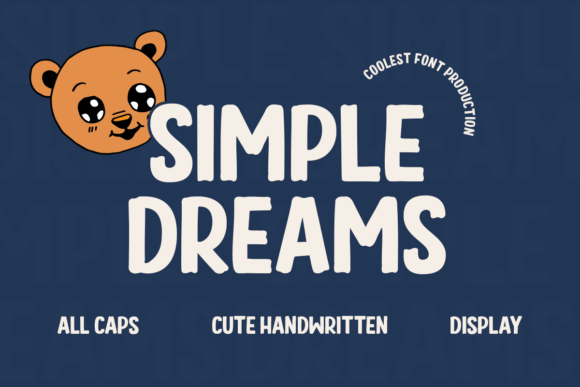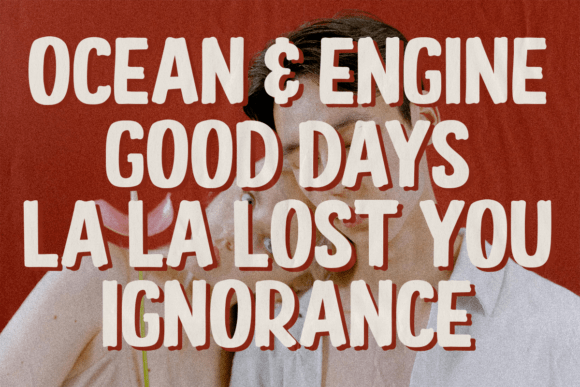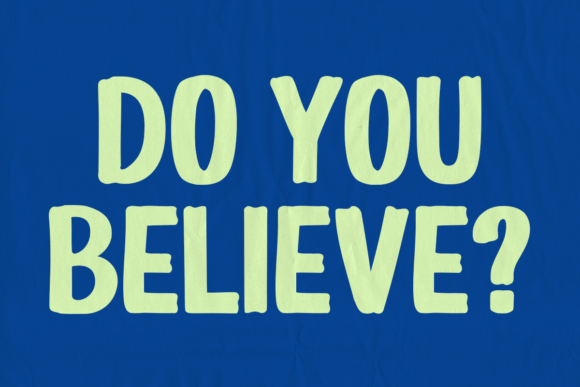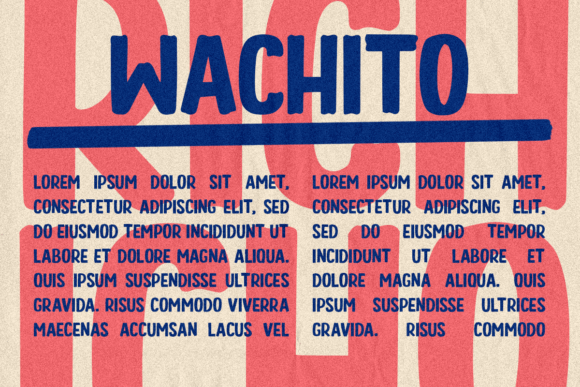
The Simple Dreams Font is here to transform your projects with its distinctive character and style. Simple Dreams – Cute Handwritten Font
Bring a touch of warmth and playfulness to your designs with Simple Dreams, a charming handwritten font that blends simplicity with elegance. Designed to capture a natural, smooth handwriting style, this font is perfect for adding a personal and cozy feel to any project.
Why Choose Simple Dreams Font?
✅ Adorable & Playful: A cute, friendly typeface that radiates positivity and joy.
✅ Smooth Handwriting Style: Designed with natural, flowing strokes for an effortless handwritten look.
✅ Versatile for Any Project: Ideal for logos, branding, social media graphics, invitations, product packaging, greeting cards, and more!
✅ High Readability: Perfectly balanced letters that ensure clarity in both headlines and body text.
✅ Multilingual Support: Includes a variety of characters to support multiple languages.
Whether you’re working on a cute branding project, a heartwarming greeting card, or a stylish social media post, Simple Dreams is your go-to font for a fun and natural handwritten look.